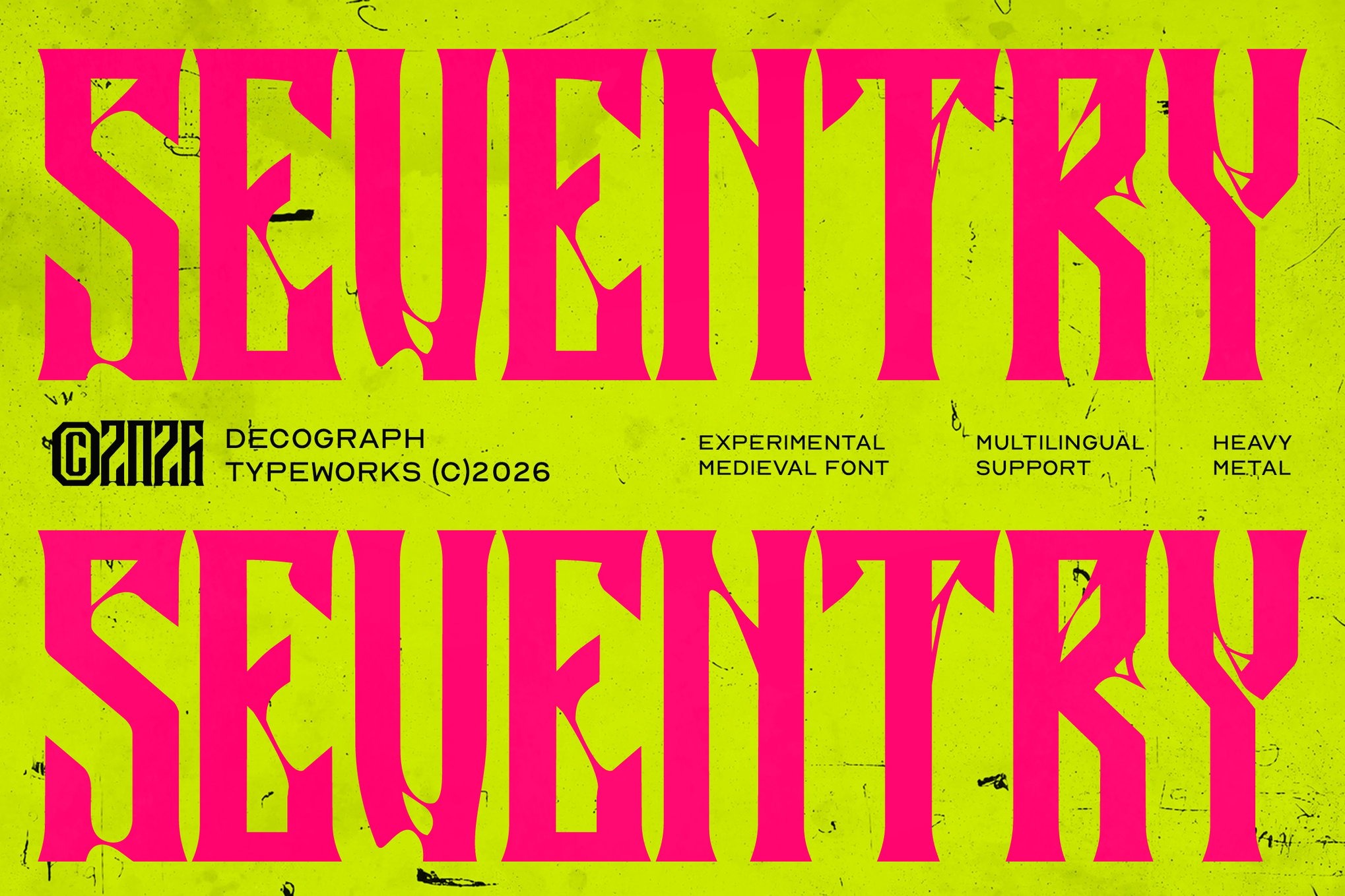
Seventry – Medieval Heavy Metal Font
Seventry – Medieval Heavy Metal Font is a distinctive and expressive font crafted to bring personality, structure, and creative energy into your projects. Seventry is an experimental medieval display font that fuses gothic blackletter heritage with modern heavy metal aggression. Featuring razor-sharp terminals, elongated vertical proportions, and dramatic ornamental cuts, it delivers a bold and rebellious visual presence perfect for standout typography.